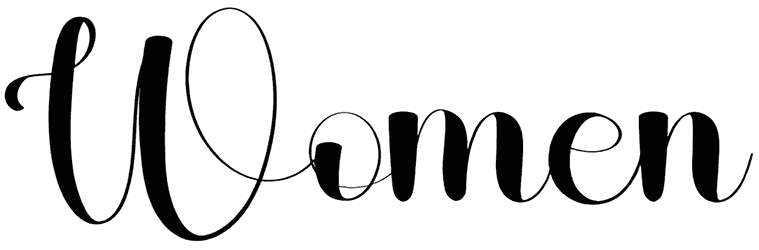
Women Font
Let us present to you one of our greatest spa fonts with loads of feminine subtleties in its design, gracefully called Women. Do you know just how much your odds of appealing to people are going to increase by including the delicate characters of this feminine font in your lettering?
Its rhythmic style won’t even let you think before admiring its seductive beauty in your dance class website headers, romantic poems, yoga posters, and any branding design for high-end services.